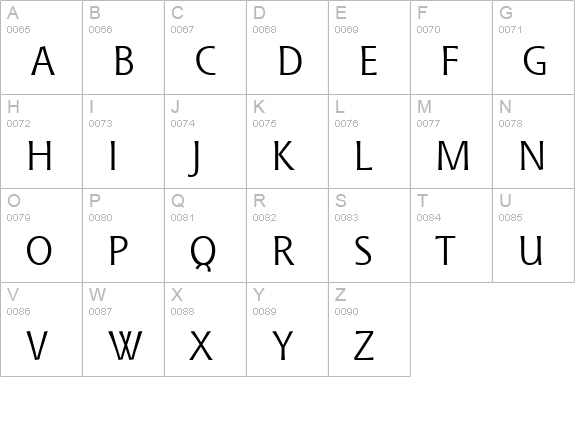
Shannon Book Font Details
Shannon Book is a comfortable, highly readable variant in the Shannon typeface family \xE2\x80\x94 well suited to long-form body text, articles, and editorial content.
Shannon Book font is a stylish and elegant typeface that is perfect for adding a touch of sophistication to any design project. With its clean lines and refined curves, this font is versatile enough to be used in a variety of contexts, from branding and advertising to invitations and editorial layouts. The Shannon Book font is characterized by its timeless elegance, making it a go-to choice for designers who want to create a classic and professional look. Its balanced letterforms and generous spacing ensure excellent legibility, even at smaller sizes. The slightly condensed proportions add a modern twist, making this font suitable for both traditional and contemporary designs. One of the best features of the Shannon Book font is that it is freely available to download at FontsMarket.com. This means that you can easily access and use this font without any restrictions or costs. Whether you are a professional designer or a hobbyist, having access to high-quality fonts like Shannon Book can greatly enhance your creativity and ensure that your designs stand out from the crowd. So, if you are looking for a versatile and elegant font that is both timeless and modern, look no further than Shannon Book. Download it for free at FontsMarket.com and start adding a touch of sophistication to your designs today.